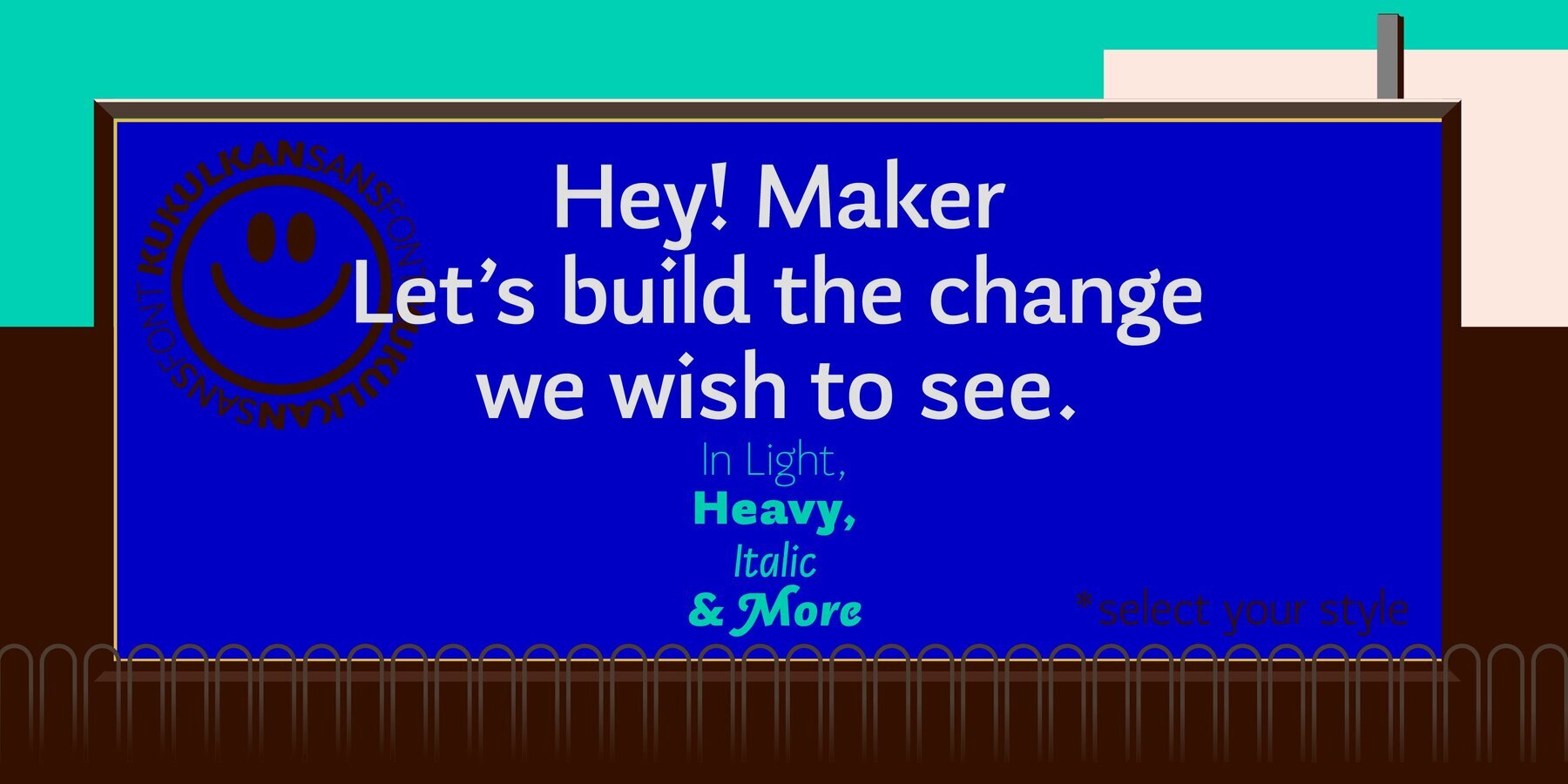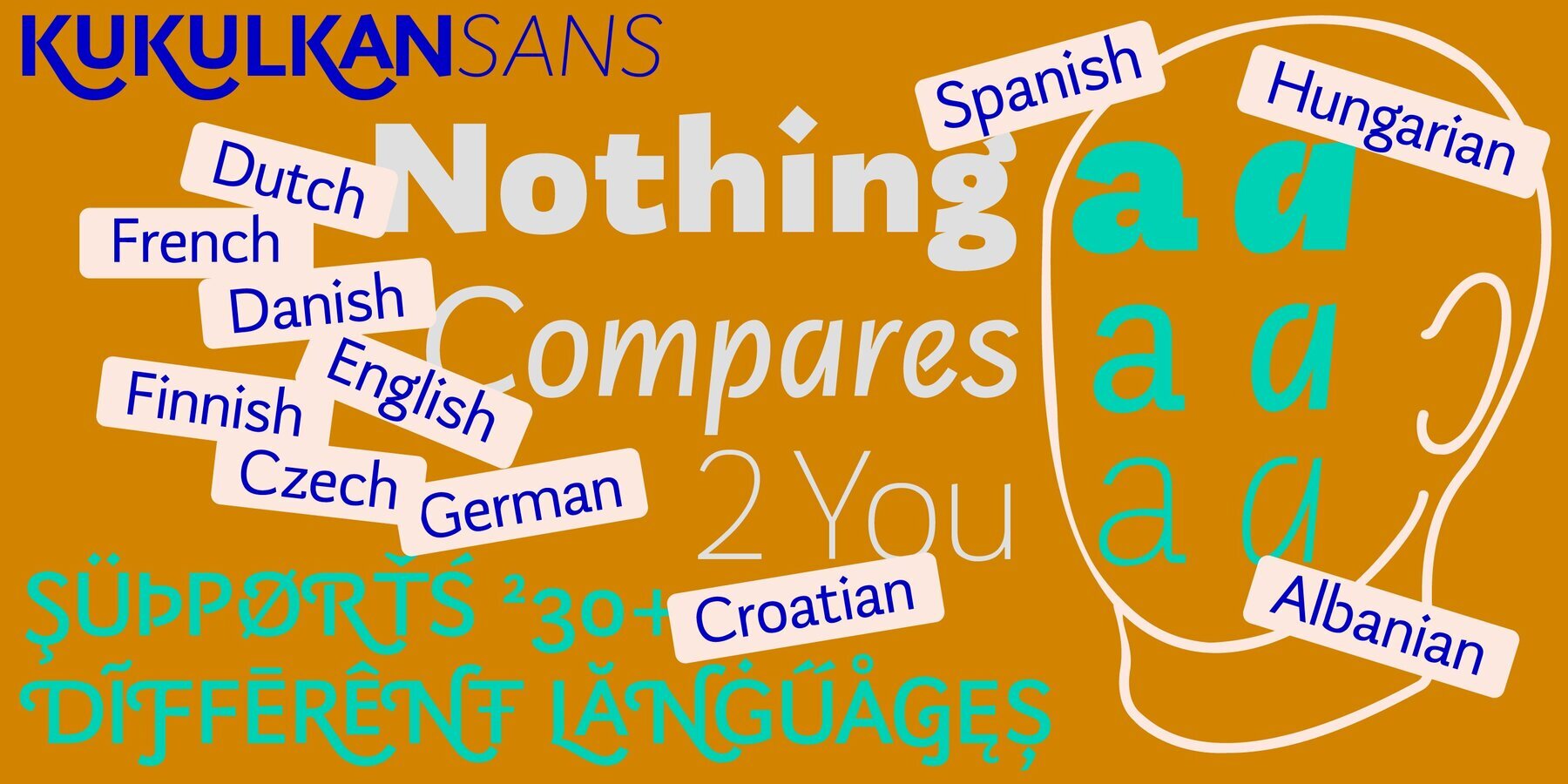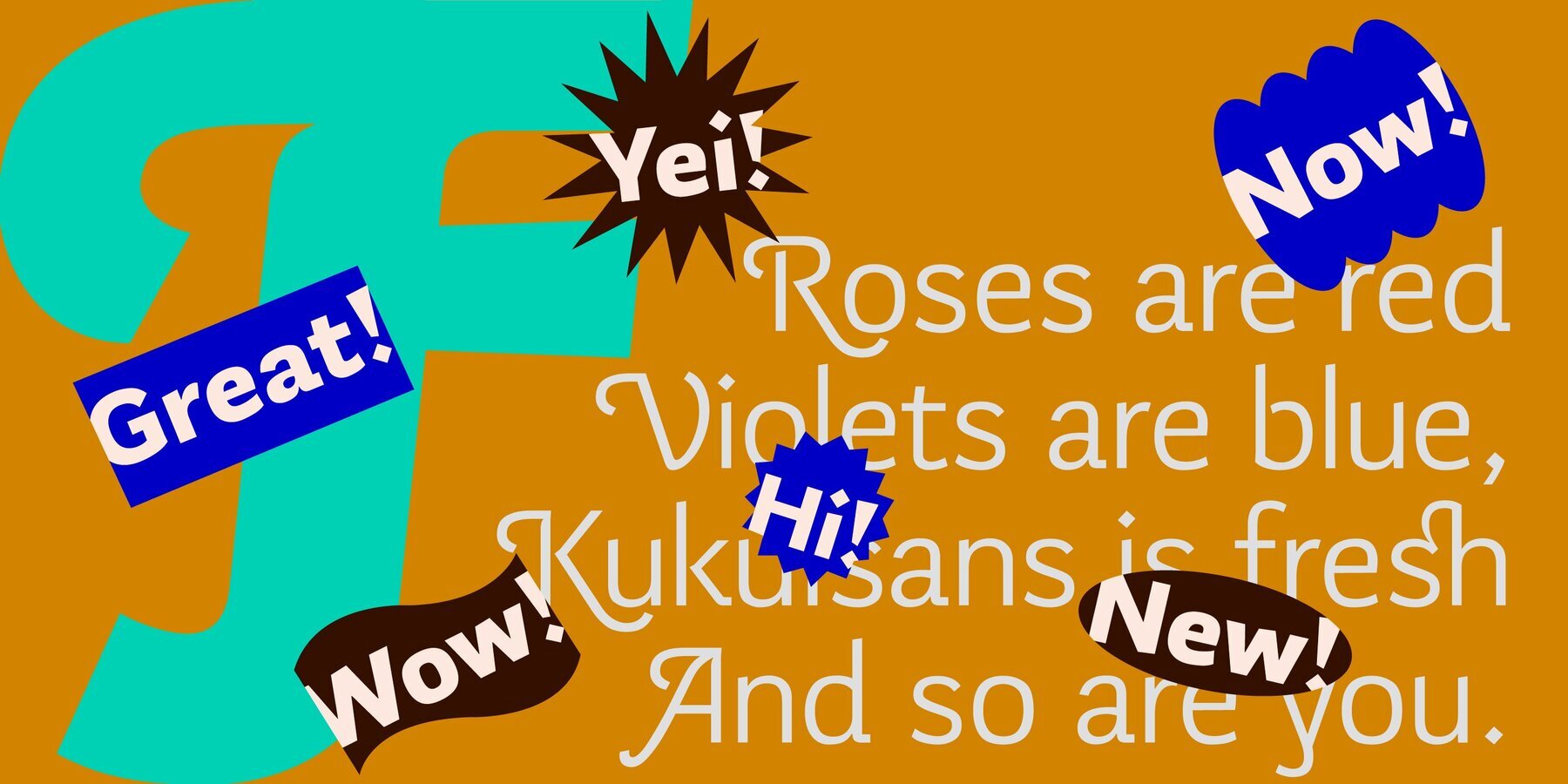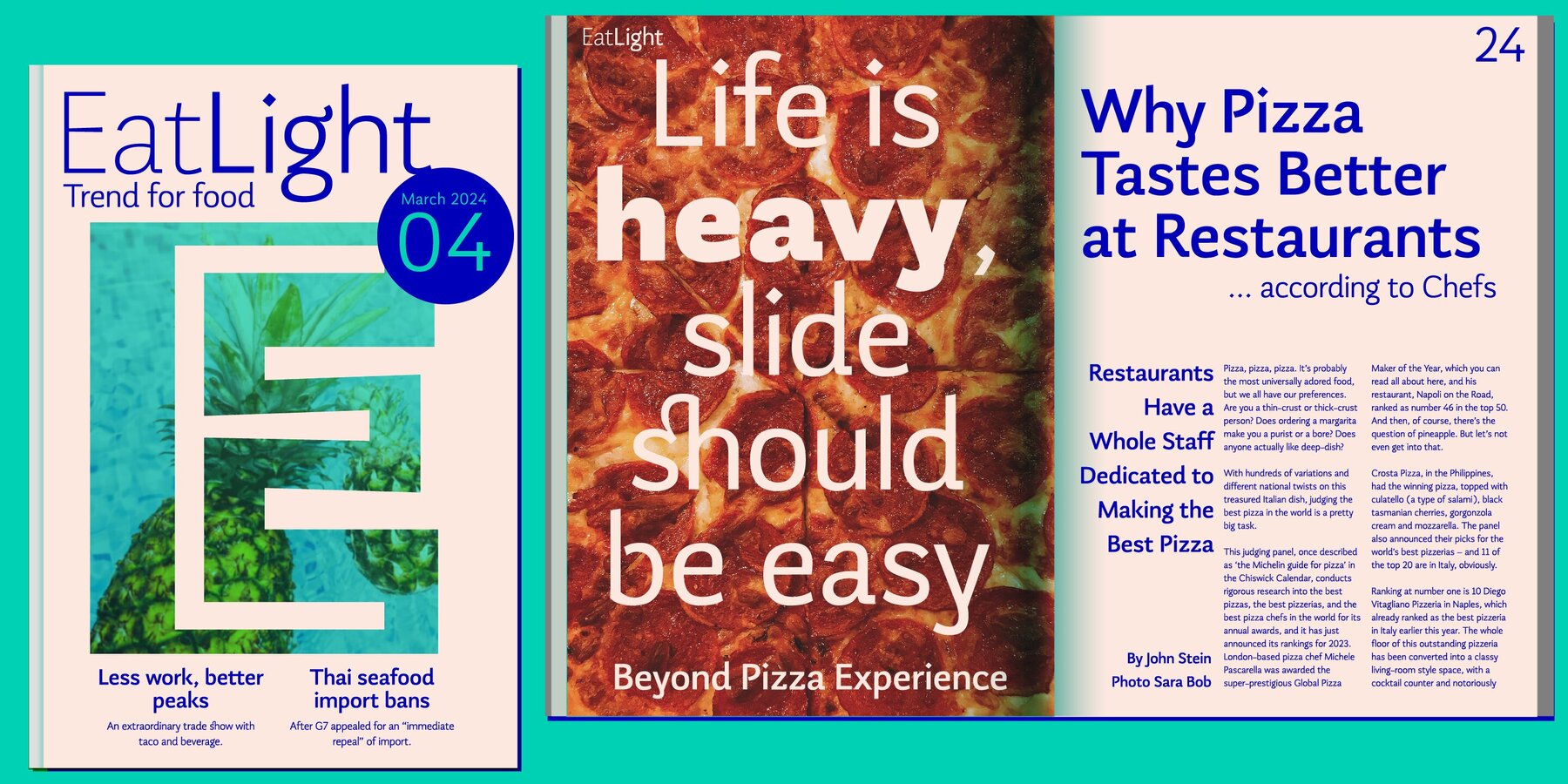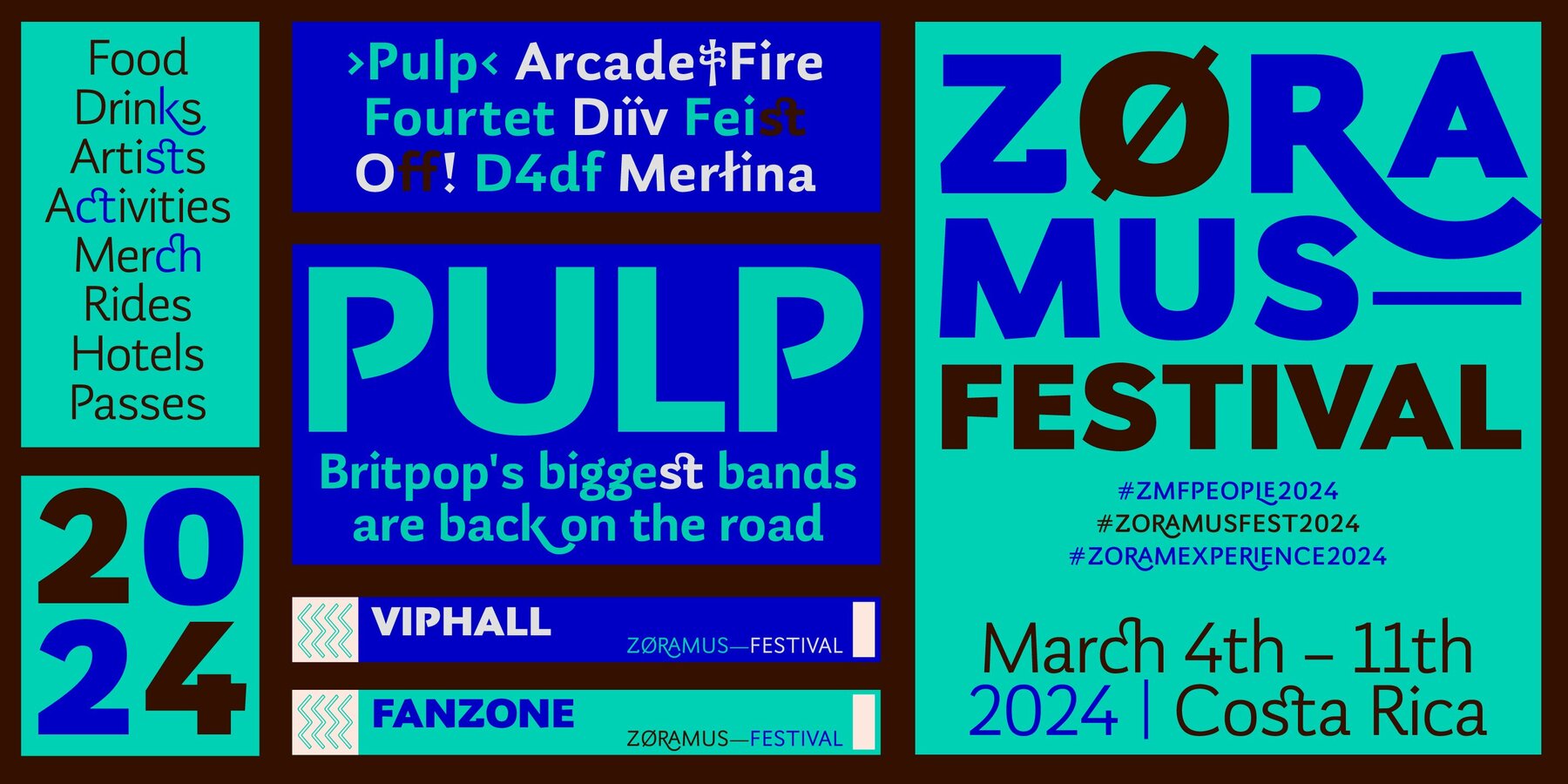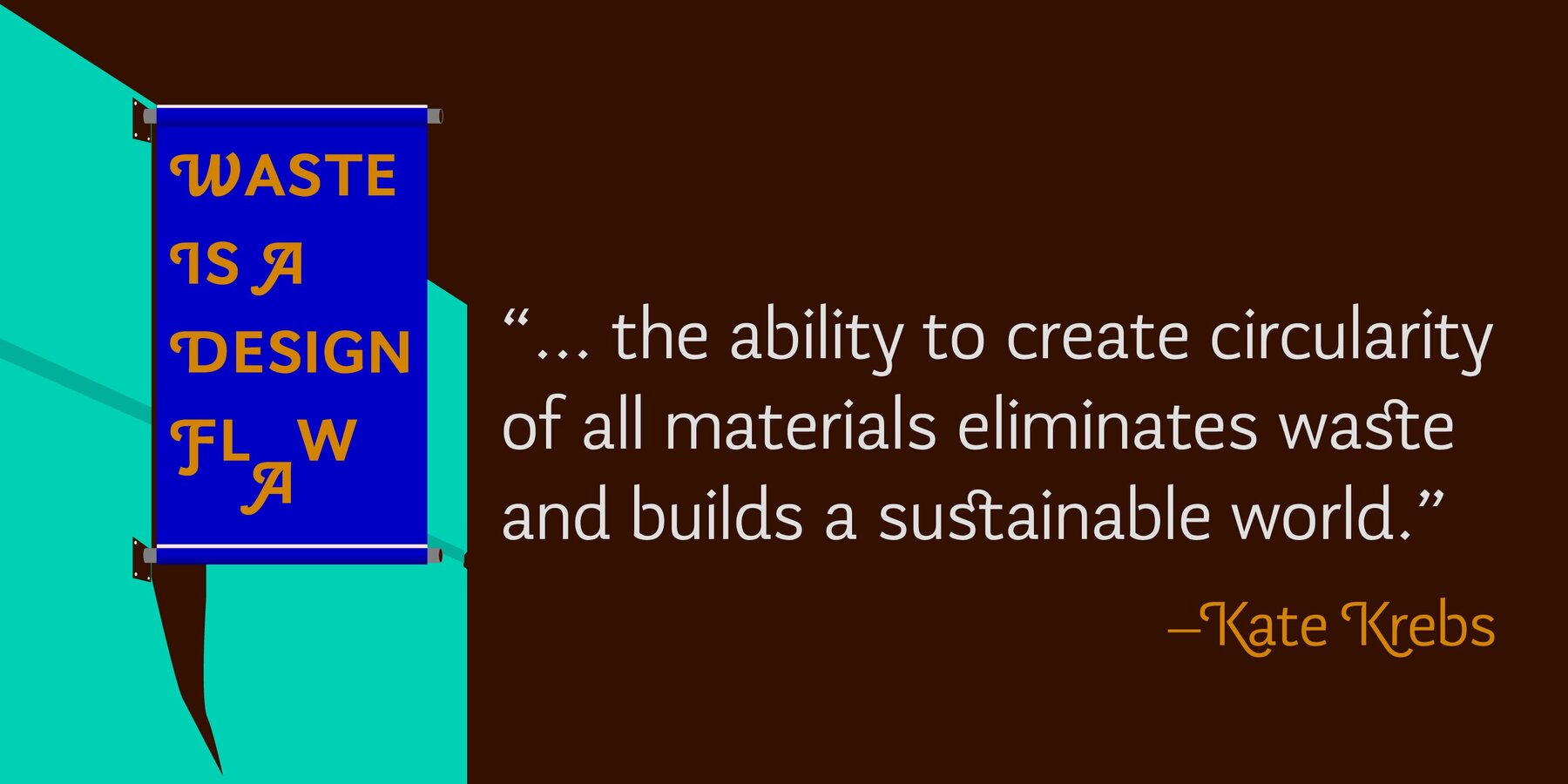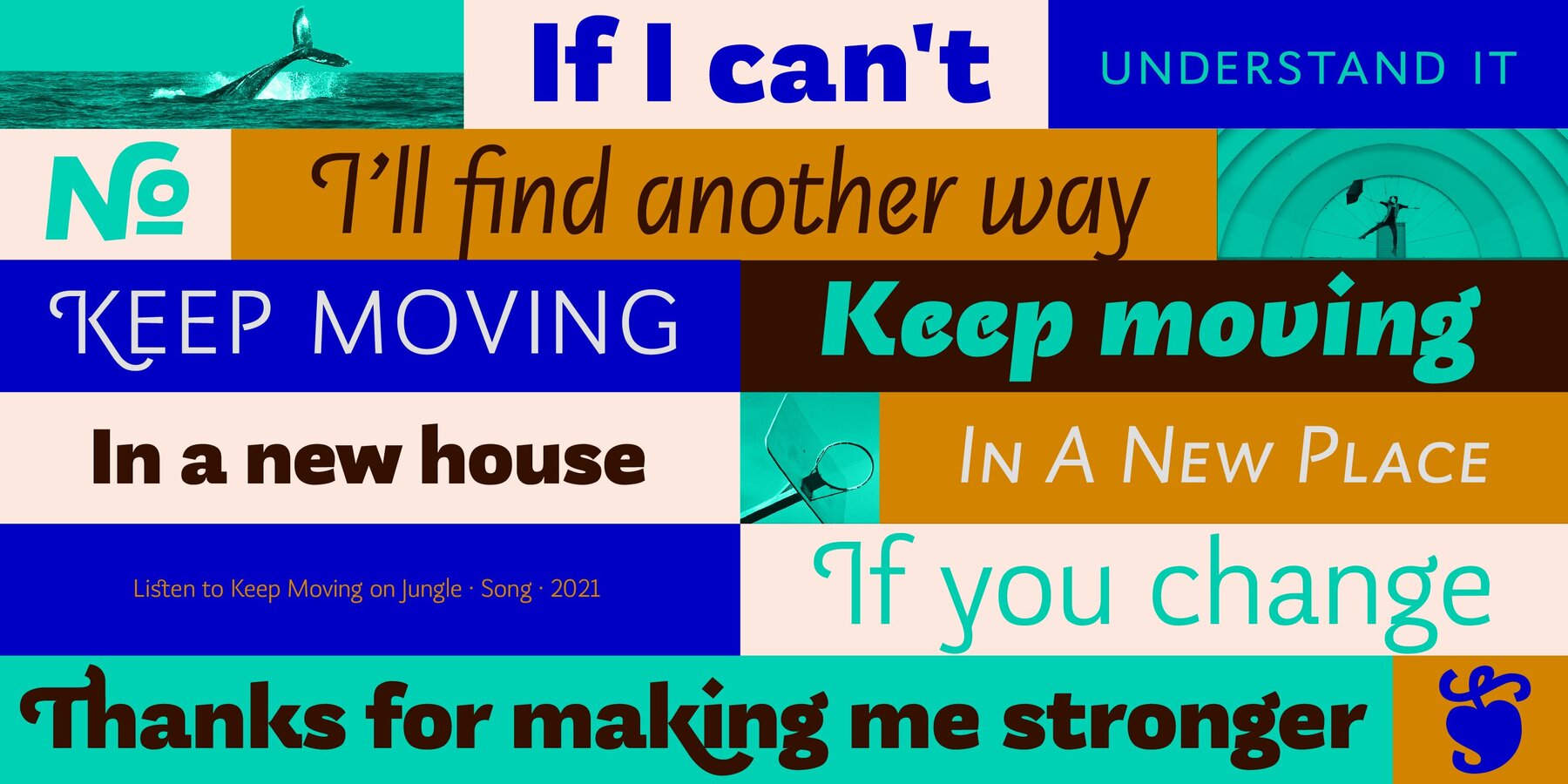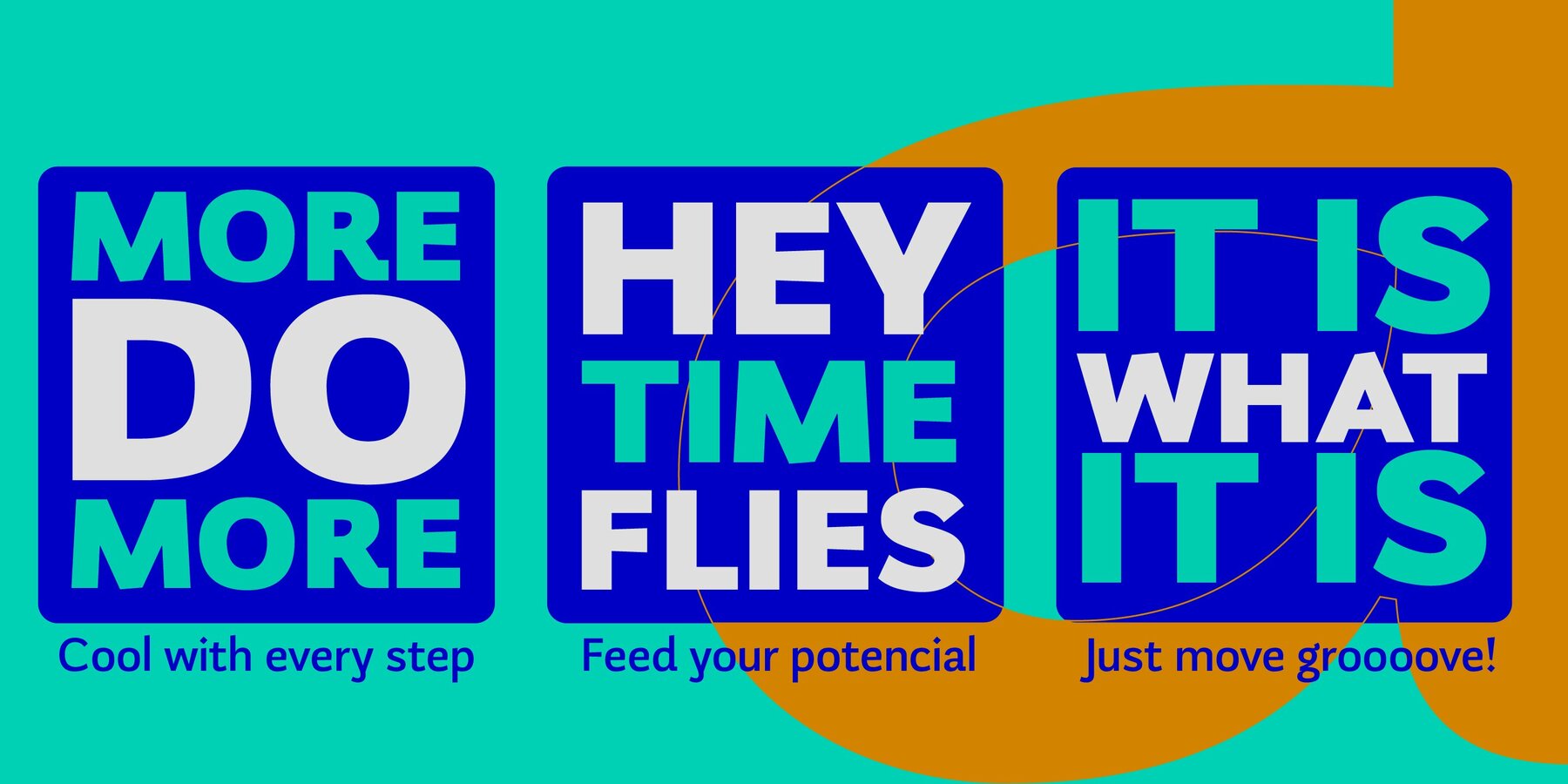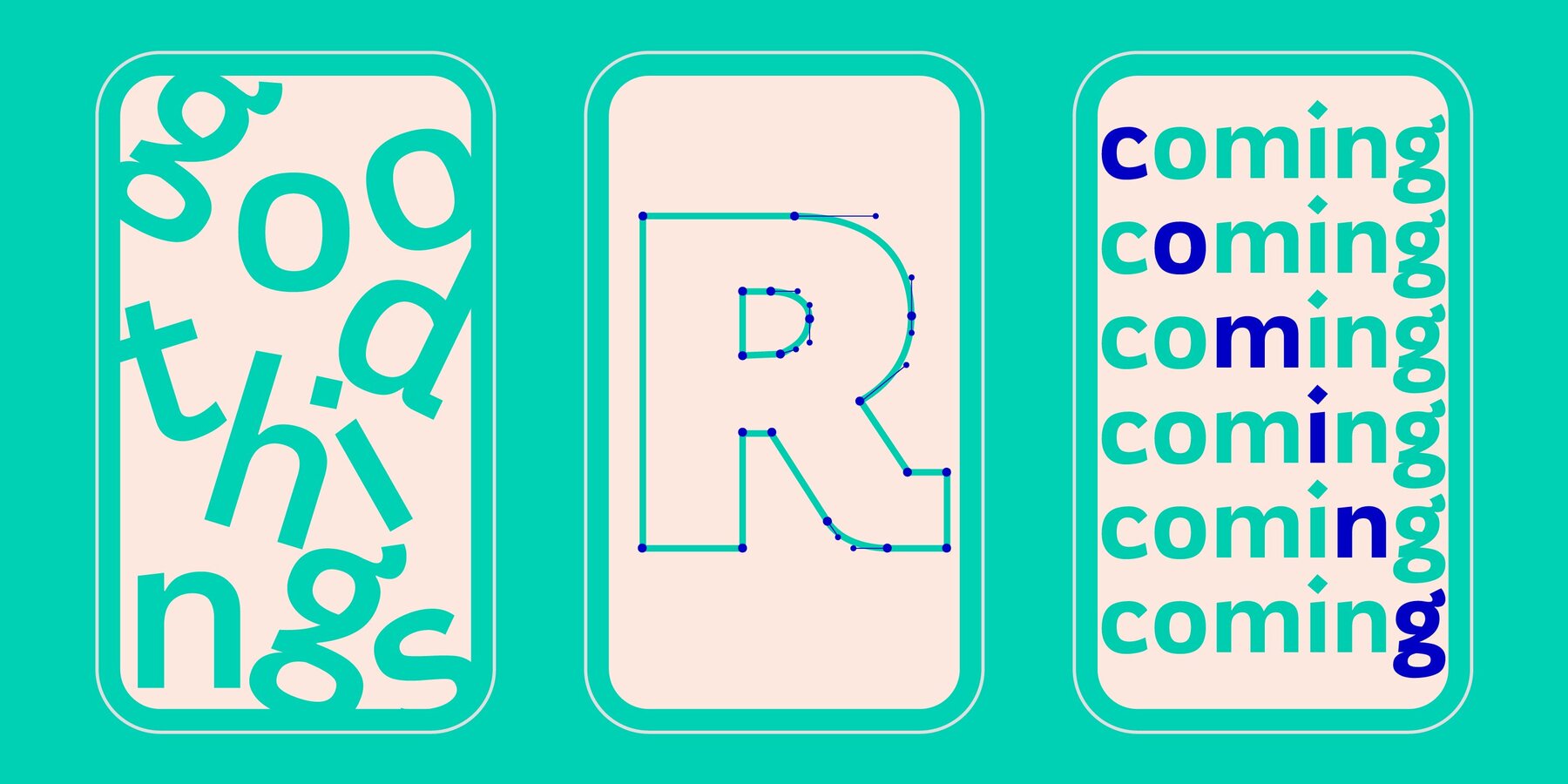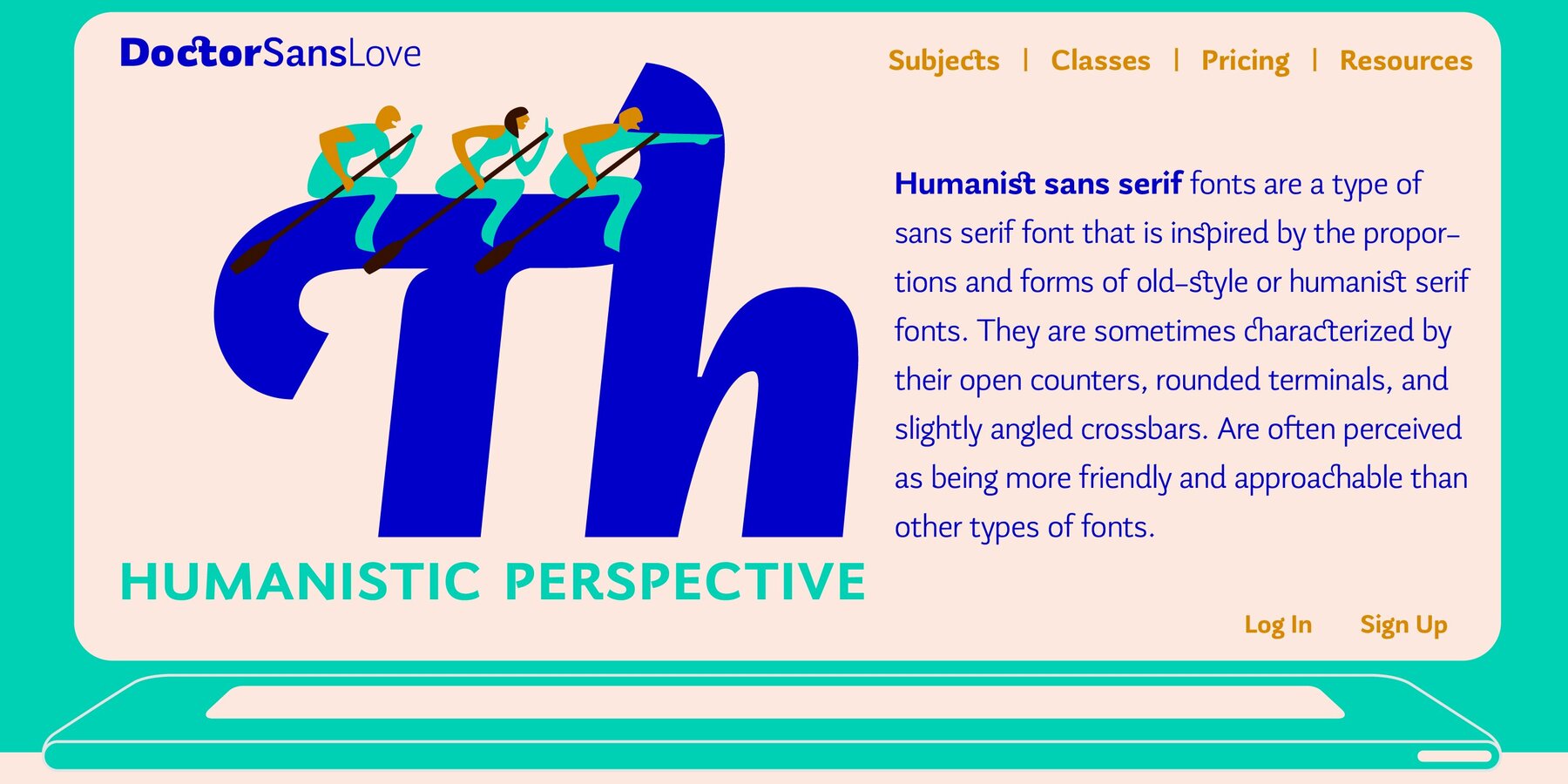
Kukulkan Sans Font
Introducing Kukulkan Sans, a typeface intrinsically linked to its predecessor, Kukulkan. This relationship is evident in its typographic ductus, optical adjustments, and spacing, revealing a creative concept that blends the style of ancient Roman letters, fantastical charm, and contemporary standards of a Sans-serif. The result is a typeface family with a modern and versatile feel. The legibility of Kukulkan Sans is the result of a successful exploration that has integrated suggestive details of the pre-Hispanic idealization of Mayan culture, particularly notable in its darker variants. However, this typeface can easily adapt to a variety of cultural nuances present in our global village. Each of the 18 styles of Kukulkan Sans includes swash designs, just like its serif counterpart. This feature adds a humanistic and fresh touch, allowing for an innovative combination of tones in written messages. Additionally, Kukulkan Sans is available in a variable version, providing even more flexibility and creative possibilities. Ideal for contexts of art, lifestyle, and culture, Kukulkan Sans and Serif complement each other, offering a clear and distinctive avant-garde. With a plastic and expressive spirit, Kukulkan Sans excels in editorial design, particularly suitable for creating solid headlines, logos, and visually appealing identity cases.